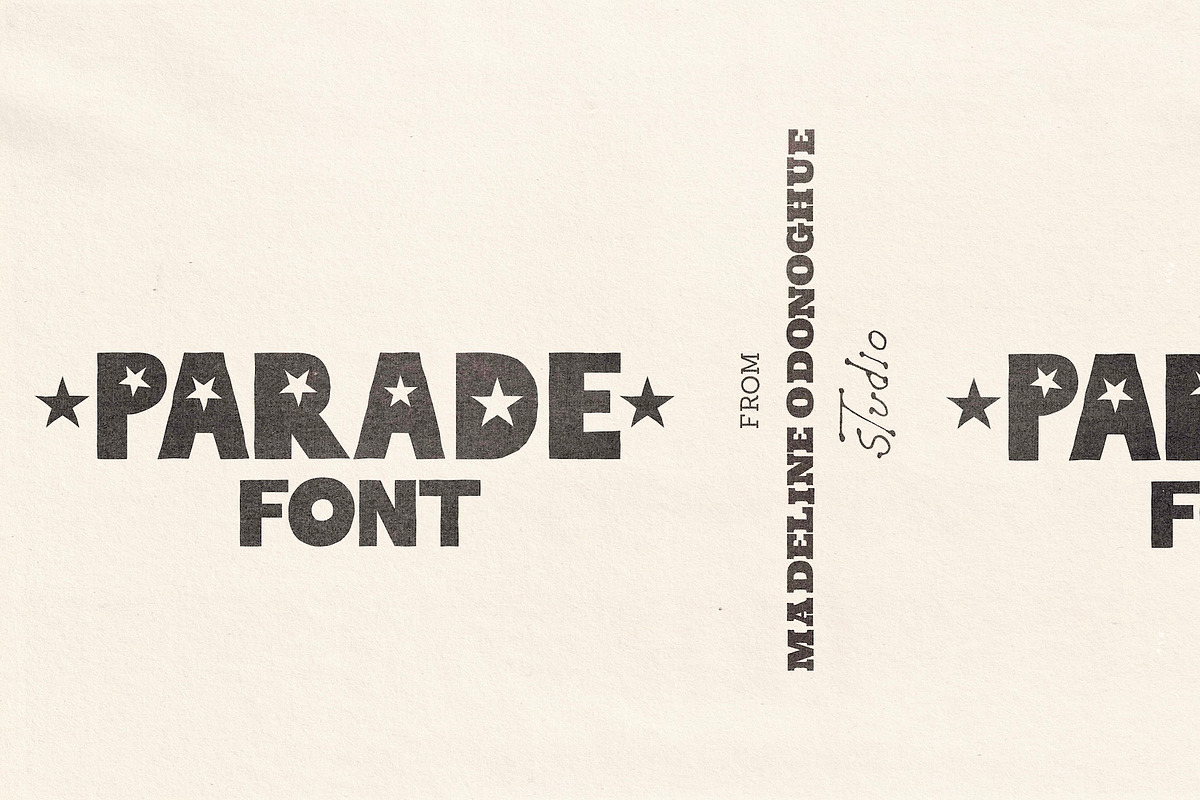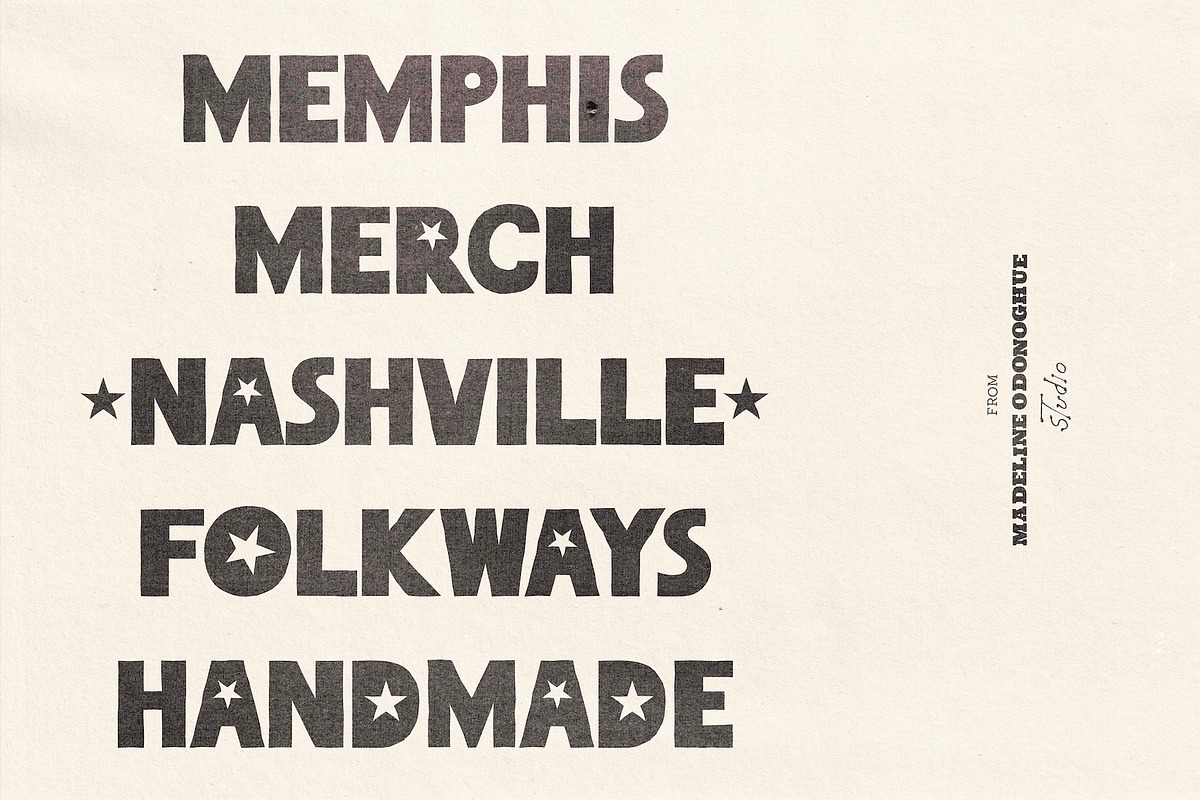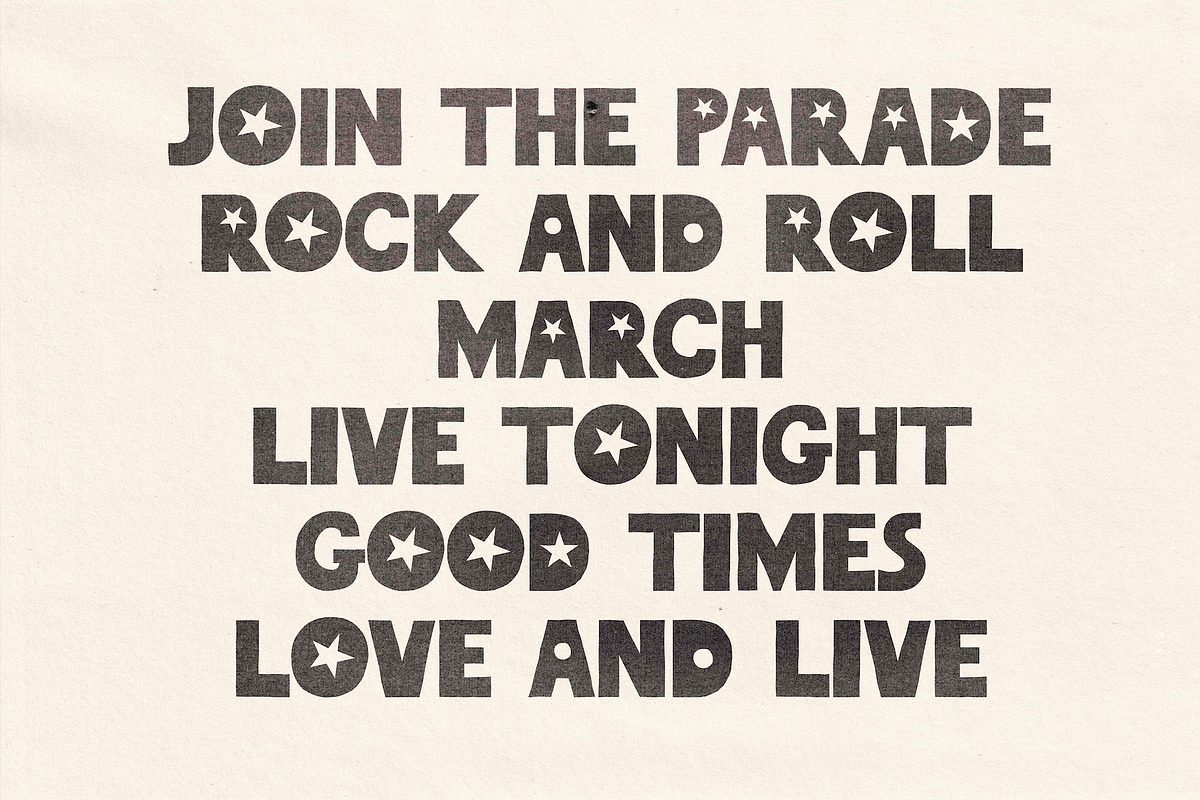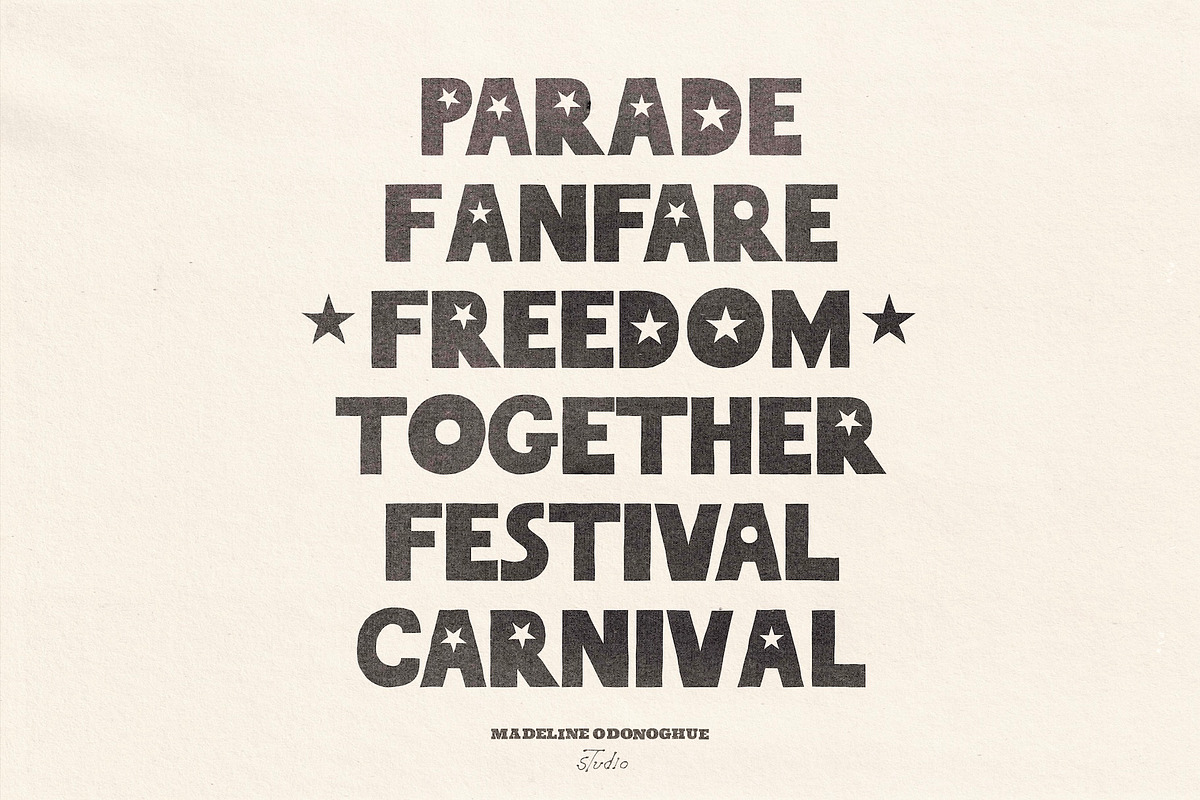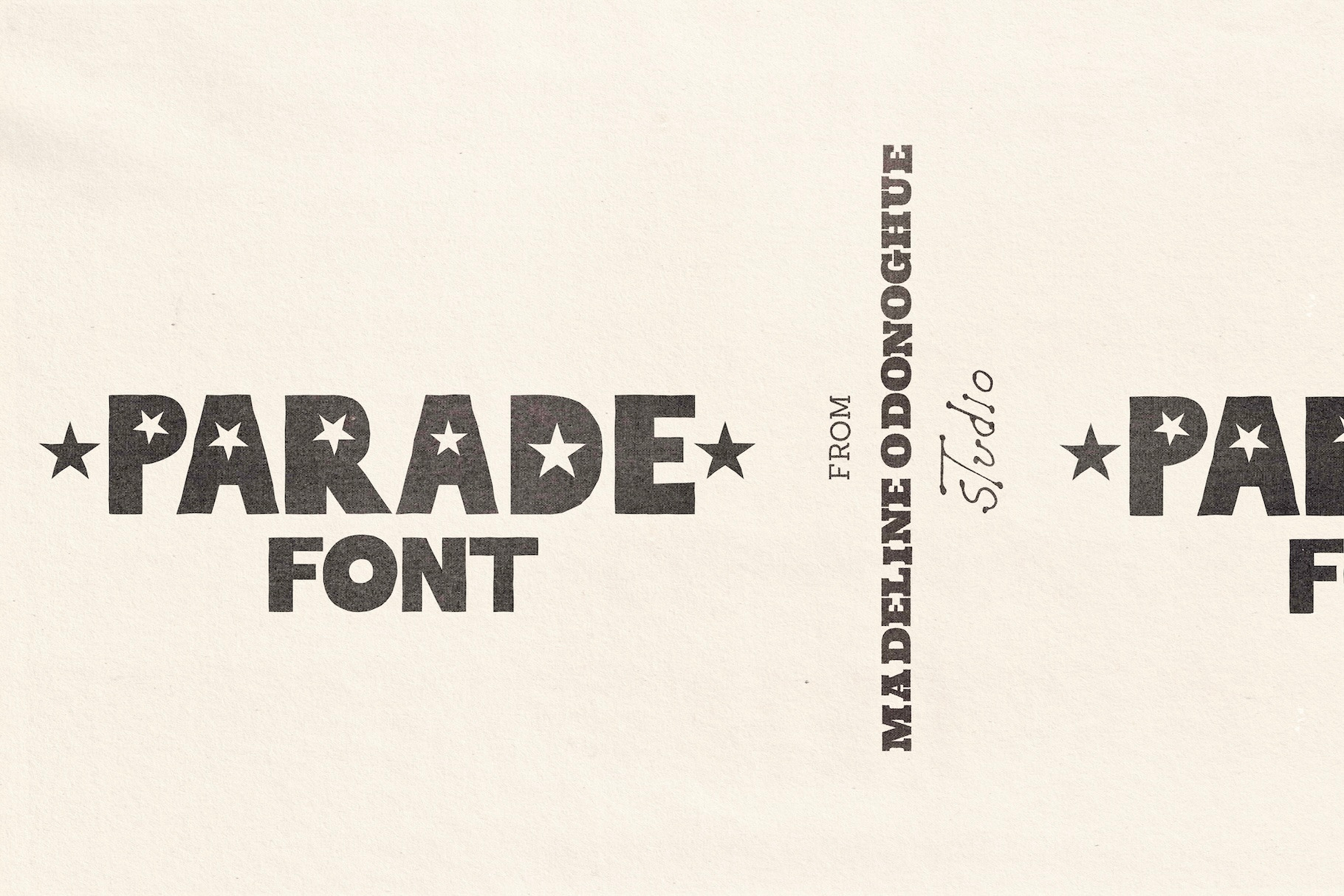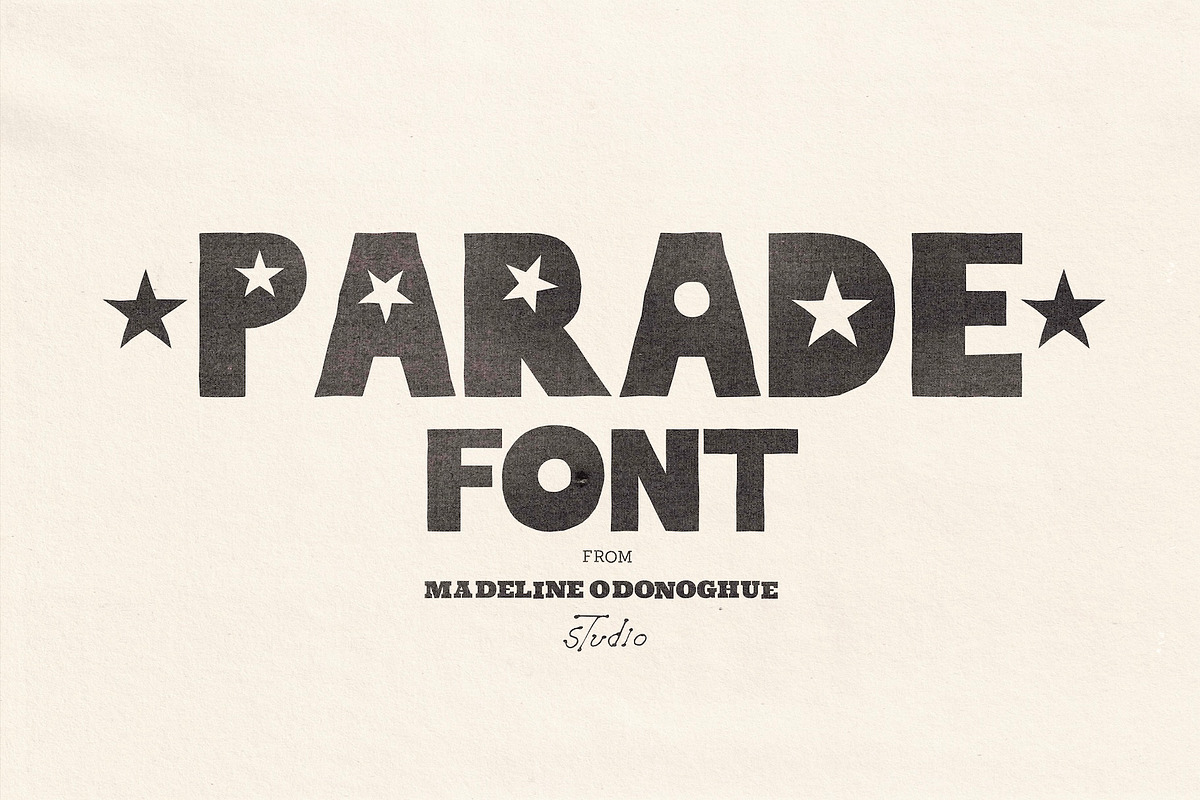
Parade Hand Crafted Font
Parade is a hand-crafted display typeface inspired by vintage banners, parade graphics, marching bands, rock & roll ephemera, hand-painted signs and the bold, playful lettering of 1960s and 70s print.
Parade takes its underlying skeleton from my earlier typeface Peace Block, but sends it marching in an entirely different direction. Where Peace Block draws from protest graphics and woodblock printing, Parade turns those chunky, imperfect forms into something more celebratory — part marching-band banner, part handmade parade sign, part rock & roll poster.
The uppercase alphabet features hand-drawn star cutouts, while the lowercase keys reveal a second set of uppercase-style forms featuring circle cutouts. Mix the two alphabets together to create changing patterns, rhythms and unexpected combinations within your words.
Bold, imperfect and intentionally a little unruly, Parade is designed to feel handmade rather than digitally perfect. Its uneven forms, shifting proportions and hand-drawn details are all part of its character.
There’s something of a vintage marching-band banner about Parade — letters made to be big, graphic and seen from across the room. It borrows from parades, community celebrations, music, flags, handmade signage and vintage print without belonging too neatly to any one era or place.
Parade is an experimental display font made for fun. Mix the alphabets, play with the spacing, make things big and let things get a little weird.
A–Z capitals with star cutouts (alternates on letters with stars to give it a hand crafted feel)
a–z lowercase keys featuring uppercase-style forms with circle cutouts
Made by hand. Made to be loud. Made for the parade.